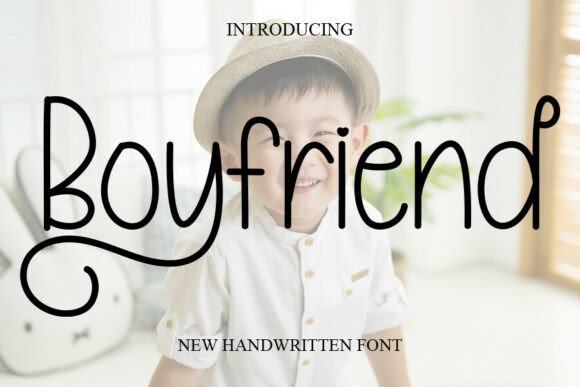
When Words are as Cozy as a Warm Hug
Have you ever sat down with a steaming cup of coffee, a blank sheet of paper, and a design idea that just won’t quit? That’s where the magic happens, and your creativity starts to flow. For many of us, the perfect font can make all the difference between a design that’s just okay and one that’s truly special.
Enter the Boyfriend Font, a tall, sweet handwritten font that brings a friendly and casual feel to your designs. Whether you’re crafting a bakery brand, a food blog, or a birthday invitation, this charming font adds a handcrafted touch that’s impossible to resist. And with PUA encoding, you can use all its stylistic features and extras with just a few clicks – making it a valuable addition to any designer’s toolkit.
Key Features of Boyfriend Font
- Font Family: Boyfriend is a sans-serif font family designed by Monotype. It is available in two weights: Regular and Bold.
- Unique Characteristics: The font features a friendly, approachable feel with rounded edges and a subtle x-height, making it suitable for body text, headings, and display typography.
Boyfriend Font Review
When I first saw the Boyfriend Font, I was immediately drawn to its playful, cursive aesthetic ✨. The font’s irregularities and imperfections make it feel hand-written, giving it a unique and personal touch. The font’s versatility is another major plus, as it can be used for a wide range of projects, from social media graphics to wedding invitations.
The font’s strengths lie in its expressive qualities, making it perfect for creating emotive and engaging content ✨. It’s also incredibly easy to read, even at small font sizes. The font’s flexibility and adaptability make it a great choice for designers who want to add a touch of personality to their projects.
- ⚠️ Lack of consistency: The font’s irregularities can sometimes make it feel inconsistent, which may be jarring for some users.
- ⚠️ Limited legibility: While the font is generally easy to read, it may struggle in certain situations, such as at very small font sizes or in low-contrast environments.
- ⚠️ Overuse: The font’s playful, cursive aesthetic can be overused, leading to a lack of visual interest and impact.
Overall, I think the Boyfriend Font is a great addition to any designer’s toolkit. While it may have some limitations, its unique qualities and versatility make it a valuable asset for creating engaging and emotive content.
Use “Boyfriend Font” for casual, conversational text, such as social media posts or product descriptions.
Combine “Boyfriend Font” with other fonts to create a unique and playful design.
Experiment with different font sizes and styles to add emphasis and visual interest.
Alternatives to Boyfriend Font
Great Vibes is a modern script font that works well for headings and titles. It’s ideal for designers looking for a friendly, approachable feel. Great Vibes has a more elegant and refined appearance compared to Boyfriend Font, which can make it more suitable for formal designs.
Comparison: While Boyfriend Font has a more casual, handwritten feel, Great Vibes is more polished and sophisticated.
Alex Brush is a elegant script font that’s perfect for designers who want to add a touch of sophistication to their designs. It’s ideal for headings, titles, and quotes. Alex Brush has a more refined and luxurious appearance compared to Boyfriend Font, which can make it more suitable for high-end designs.